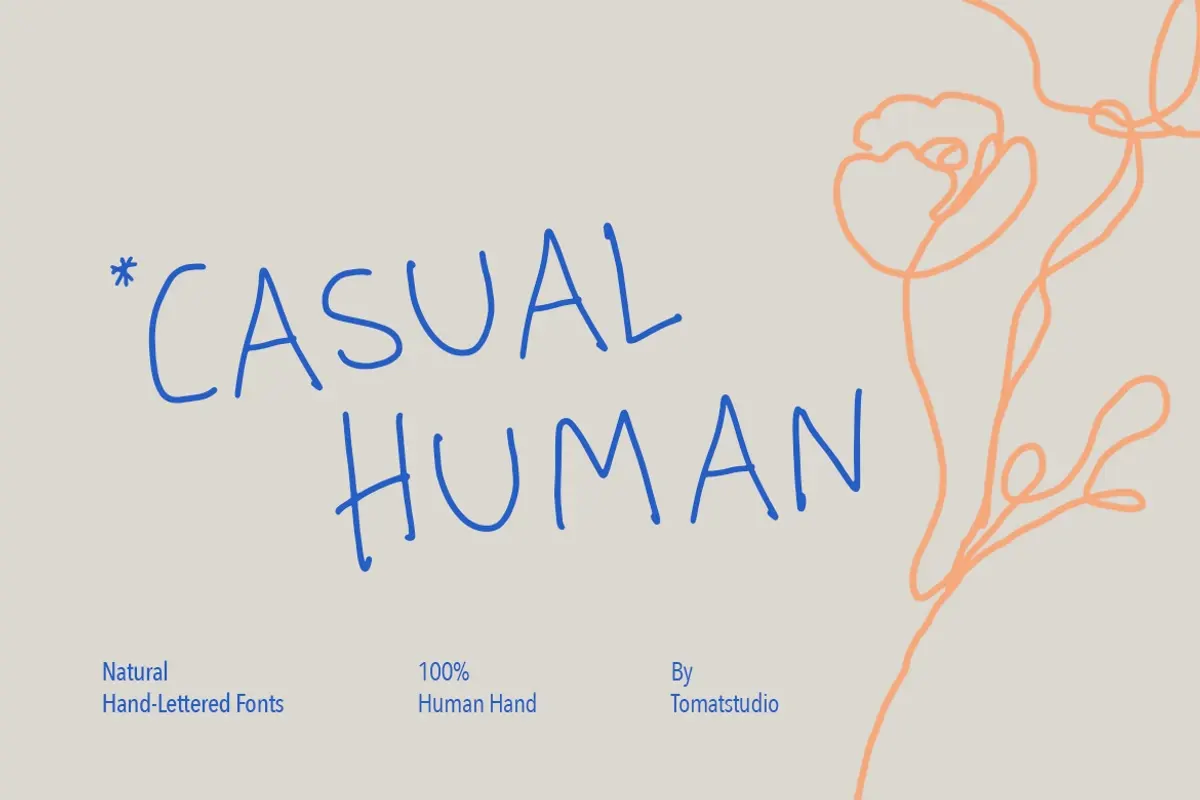
Casual Human Fonts Free Download is a relaxed and friendly handwritten font collection that captures the charm of natural, everyday writing. Perfect for social media graphics, lifestyle branding, personal blogs, and creative packaging, these fonts bring warmth, personality, and authenticity to your designs.
Designed with smooth strokes and an organic flow, Casual Human Fonts Free Download feels approachable and real—just like a handwritten note. Whether you're creating heartfelt messages, casual branding, or fun product labels, this font collection helps your work feel human and relatable. Try it in your next project to experience its easygoing vibe—then upgrade to a commercial license when you're ready to share it with the world.